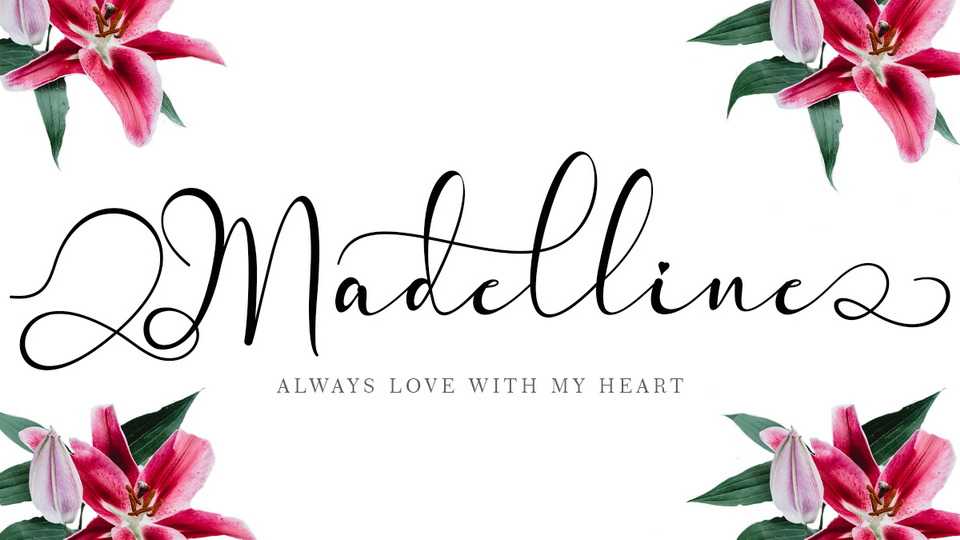
Download Madelline font, a handwritten typeface that is very elegant, beautiful and has a romantic impression. Madelline is suitable for beautifying all types of your work.